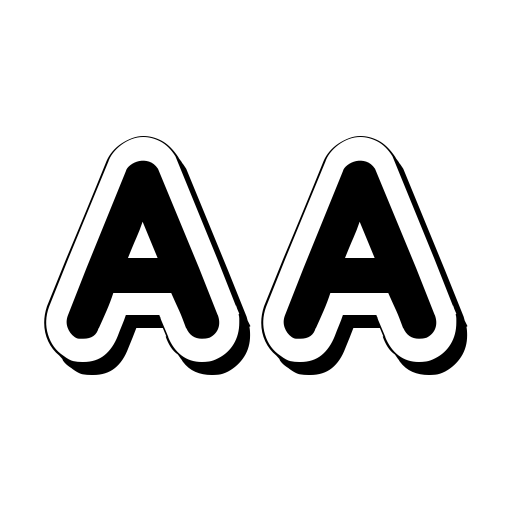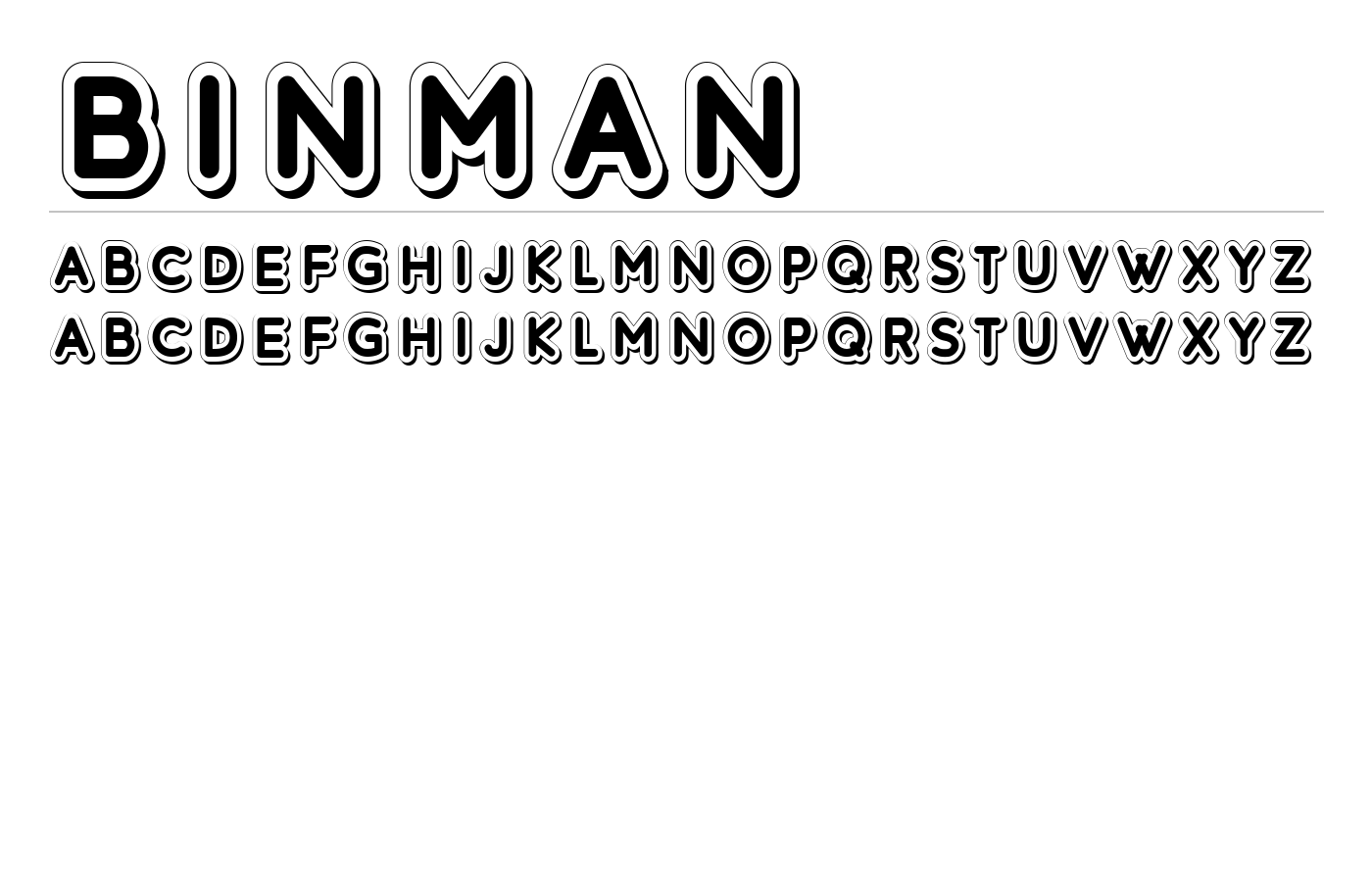
Binman Font is a playful, bold sans serif typeface with a fun, outlined style that creates a layered, dimensional look. Its rounded edges and thick strokes make it friendly and approachable, perfect for eye-catching headlines, logos, or creative projects that need a youthful and energetic vibe. This font works well in branding and posters where a vibrant and informal feel is desired.
Binman Font
About Binman Font
| Font family | Binman Font |